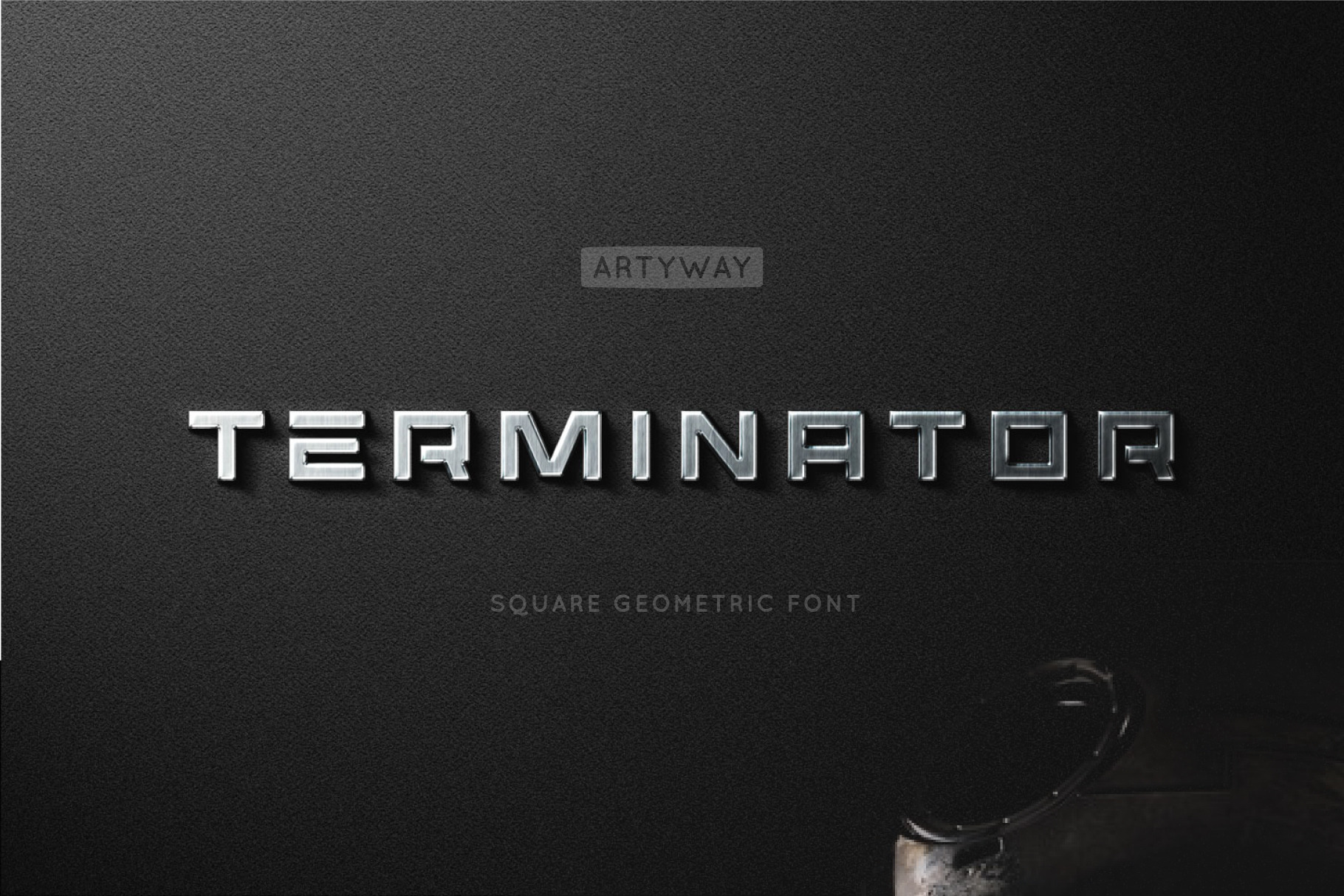
Terminator Headline Font
I suggest you to pay attention to the "Terminator" font.
Strict geometry gives a bold and confident look. Ideal for fresh technological solutions.